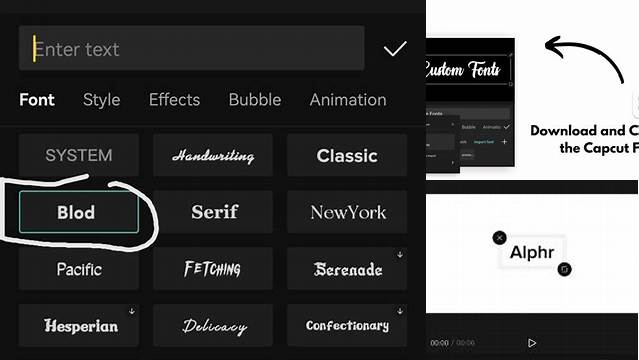
CapCut Fonts: Download & Use Guide
Hey there, content creators! Ever wondered how to jazz up your CapCut videos with some snazzy fonts? You're in the right place! This guide will walk you through everything you need to know about downloading and using new fonts in CapCut. We'll cover the whole shebang, from where to find awesome fonts to how to get them into your videos. So, grab your favorite beverage, and let's dive in! CapCut has become a go-to app for mobile video editing, and one of the most effective ways to improve the appeal of your videos is by using creative and distinctive fonts. By incorporating new fonts into your CapCut projects, you can make your content more eye-catching and tailor it to match your brand or personal style. This guide is designed for both beginners and experienced editors looking to enhance their video creation skills. We'll cover all the necessary steps to locate, download, and seamlessly integrate custom fonts into your projects, ensuring your videos stand out. Let's get started.
Finding Your Fonts: Where to Look for Awesome Fonts
Alright, guys, first things first: where do you even find these magical fonts? There are tons of websites out there offering free and premium fonts. Here are some of the best places to start your font-hunting adventure: Google Fonts, this is a fantastic resource for free fonts. They have a massive library of fonts that you can download and use for personal and commercial projects. It is a great starting point, because it is easy to navigate and find fonts that meet your specific requirements. Font Squirrel, this site is another goldmine of free fonts, many of which are licensed for commercial use. They have a great selection, and their font-finding process is also straightforward. Behance and Dribbble, these platforms are not just for fonts, but also for other types of creative material. Behance and Dribbble are fantastic for discovering fonts designed by talented artists. You may need to contact the designers to get the font files, but it's often worth it for unique fonts. Creative Market and Envato Elements, if you're looking for premium fonts, these are your go-to spots. They have a huge selection of high-quality fonts that can take your videos to the next level. Just be aware of the licensing terms before you use them.
When you're browsing these sites, there are a few things to keep in mind. Think about the style of your video and the message you want to convey. Do you need something modern and clean, or something more playful and quirky? Consider the readability of the font, especially if you're using it for text overlays. You want people to be able to read your text easily. Also, make sure the font supports the characters you need. If you're using a lot of special characters or multiple languages, check that the font has those characters. Ensure that the font's license allows you to use it for your CapCut projects. Most free fonts are fine, but always double-check the terms. And finally, always download fonts from reputable sources to avoid any malware or security issues. With so many options, it can be overwhelming, so consider your brand’s personality or the vibe you are trying to capture in your video. Don’t be afraid to experiment and find the perfect font that brings your vision to life.
Choosing the Right Font
Choosing the right font is crucial for making your videos look professional and engaging. Think about the mood you want to create. A sleek, sans-serif font is great for a modern feel, while a script font can add a touch of elegance. It’s all about matching the font to your content. Here are a few tips to help you make the best choices: Readability is Key: Make sure the font is easy to read, especially on a small screen. Avoid overly stylized fonts if they're hard to decipher. Font Pairing: Don't use too many fonts in one video. Stick to two or three fonts at most. Pair a heading font with a body font for a balanced look. Consider the Context: Choose fonts that fit the theme of your video. A fun font might work for a comedy video, but a serious video might need something more understated. Test it Out: Before you commit to a font, try it out in your CapCut project. See how it looks with your video content and make sure it fits your overall style. By keeping these factors in mind, you'll be able to choose fonts that enhance your videos and make them more engaging. It can dramatically improve the overall viewing experience. So, take your time, experiment, and find fonts that reflect your unique style!
Using Your New Fonts in CapCut: Tips and Tricks
Okay, so you've successfully installed your fonts! Now comes the fun part: using them to spice up your videos. Here are some tips and tricks to help you get the most out of your new fonts: First, consider the text placement. Think about where you want your text to go on the screen. Use text overlays to add a title, captions, or other text. Be careful to ensure that the text is not distracting the viewers from the main focus of your video. Second, the size and style of the text must match the overall theme. Varying the text’s size and style can help it match the aesthetic you are trying to achieve in your video. This also enhances the video’s appeal to the audience. Third, animations and effects can bring your text to life. CapCut offers a variety of animations and effects that can make your text more dynamic and engaging. Experiment with different animations to see what looks best. Fourth, think about the color and contrast. Make sure your text color contrasts well with the background so that it's easy to read. Also, avoid using too many different colors in your text. Fifth, align the text with your video content. Your text should complement and enhance your video's message. Use text to emphasize key points or add context to your visuals. Use bold and italics. Bold text can be used for headings or important information, while italics can be used for emphasis. Use a combination of techniques to create a balanced and visually appealing design.
Font Combinations and Design Best Practices
Alright, let's talk about making your videos look super professional. Combining fonts effectively is key to a great design. Here are some tips: Choose a Headline Font: This is the font you use for titles and main headings. It should be bold and eye-catching. Select a Body Font: This font is for your main text content. It should be easy to read and complement your headline font. Limit Your Font Choices: Using too many fonts can make your video look cluttered. Stick to two or three fonts at most. Consider Font Contrast: Make sure your fonts contrast well with each other. If you have a bold headline font, use a more subtle body font. Pay Attention to Spacing: Ensure there is enough space between lines of text and around your text elements. Align Text Properly: Use proper alignment to make your text look neat and organized. Experiment with different combinations. Try different headline and body font pairings to see what works best. Observe how the different fonts look and feel. Choose a font combination that aligns with your video’s content and overall style. Once you grasp these principles, you'll be able to enhance your videos with text, making them even more attractive and impactful.
Conclusion: Level Up Your Videos with Custom Fonts
And there you have it, folks! You now have everything you need to download, install, and use custom fonts in CapCut. Remember to choose fonts that match your video's style, follow the installation steps carefully, and have fun experimenting with different combinations and effects. With some practice, you'll be creating stunning videos that look amazing! The ability to add customized fonts makes your videos unique and eye-catching. So, go out there, download some fonts, and start creating! Your viewers will surely appreciate the extra effort! Remember, the best videos are the ones that truly reflect your creativity and personal style. Keep experimenting, keep learning, and most importantly, keep creating! Happy editing!